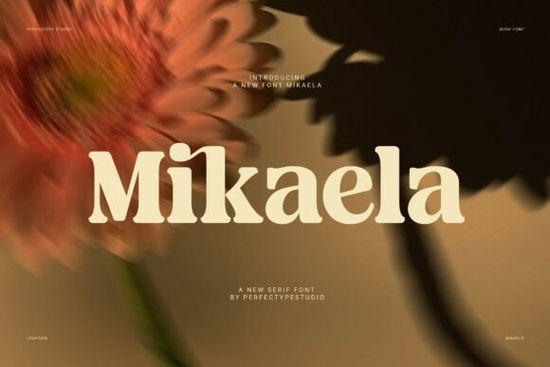
If you're looking for a serif font that feels both timeless and modern, Mikaela Font might be exactly what your project needs. It’s a display serif with a warm, confident presence perfect for headlines, branding, invitations, and any design where you want to stand out without sacrificing readability.
What makes Mikaela Font stand out?
Mikaela combines classic serif structure with soft curves and compact proportions. The result? A typeface that feels elegant but not stiff, refined yet approachable. Unlike some thin editorial fonts that can look fragile or distant, Mikaela uses fuller shapes and stronger strokes. This gives it a grounded, balanced feel ideal for designs that need personality and clarity at the same time.
The rounded counters (the open spaces inside letters like 'o' or 'a') and smooth joins between strokes add warmth. These subtle details make the font feel inviting, even in bold sizes. And because of its careful spacing, Mikaela stays legible even when used large great for posters, logos, and social media graphics.
Where can you use Mikaela Font?
Designers love using Mikaela for:
- Branding & business cards – Its polished look adds instant credibility to any professional identity.
- Invitations & wedding stationery – The elegant curves and tasteful ligatures give a personal, thoughtful touch.
- Print-on-demand products – Whether it's mugs, t-shirts, or wall art, Mikaela stands out on merchandise.
- Blog headers & social media posts – It grabs attention without overwhelming the rest of your layout.
You’ll find it works well in both digital and print formats, making it a versatile choice across different projects.
How does Mikaela compare to other serif fonts?
Many serif fonts lean either too traditional or too trendy. Mikaela sits comfortably in the middle classic enough to feel trustworthy, fresh enough to feel current. It doesn’t try to be everything to everyone, but it does what it’s meant to do exceptionally well: create memorable text that looks intentional and stylish.
For example, if you’ve used fonts like Playfair Display or Lora before, Mikaela offers a similar level of elegance but with a slightly more modern twist. It’s not as dramatic as some display serifs, but it still commands attention.
Why designers choose Mikaela for their work
One reason many creatives return to Mikaela is its balance. It’s strong without being harsh, detailed without being cluttered. The ligature details those little connected letter combinations are present but never distracting. They add charm, not noise.
It’s also great for small businesses and hobbyists who want to elevate their brand visuals without needing advanced typography skills. You don’t have to be a font expert to make it work. Just pair it with a clean sans-serif for body text, and you’re set.
And if you’re into print-on-demand selling, Mikaela helps your designs look premium. Whether you’re printing on canvas, tote bags, or greeting cards, this font brings a sense of quality that customers notice even if they can’t say why.
Getting started with Mikaela Font
Once you’ve tested it, you’ll likely appreciate how easy it is to use while still delivering standout results.
- Use it for headlines or titles only pair with a simple sans-serif for body text.
- Keep line spacing generous to maintain clarity, especially in larger sizes.
- Try it in dark or light backgrounds to see which contrast works best for your project.